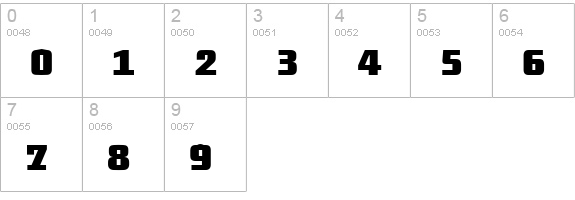
DistrictTF-BoldAlt Font Details
DistrictTF-BoldAlt font is a bold and striking typeface that commands attention with its unique design. This versatile font is perfect for creating eye-catching headlines, posters, and branding materials. The sharp edges and strong lines of DistrictTF-BoldAlt exude modernity and confidence, making it a great choice for projects that require a bold statement. What's even better is that DistrictTF-BoldAlt is available for free download at FontsMarket.com. This means you can easily access this standout font and use it in your projects without any cost. Whether you're a designer looking to add a fresh touch to your creations or a business owner in need of a powerful branding tool, DistrictTF-BoldAlt is a font that delivers both style and impact. Download it today and elevate your designs with this striking typeface.